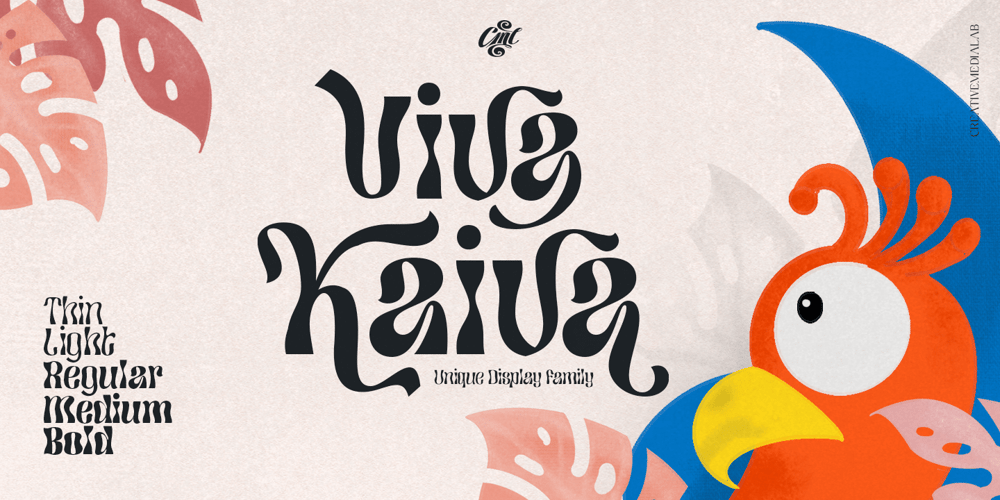
Viva Kaiva Font Family was designed by Kadek Mahardika and published by Creativemedialab. Viva Kaiva contains 5 styles and family package options. Viva Kaiva is one of our unique fonts with a psychedelic touch, this font has many stylistic alternates that make this font the best option for creating a unique title for your Illustrations, titles, posters, branding projects as well as designs with a fantasy theme.